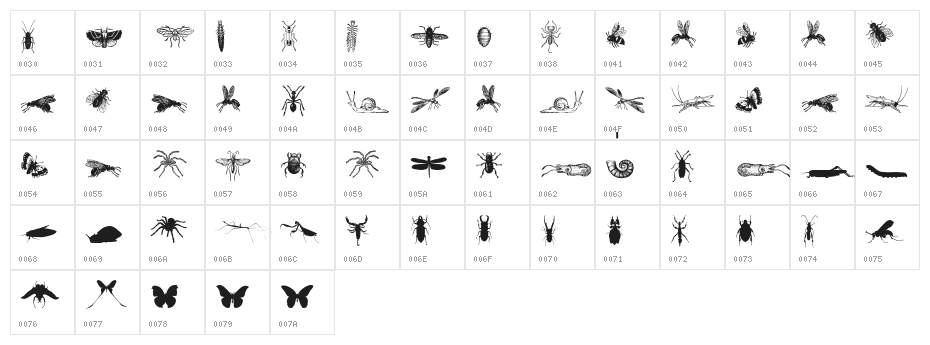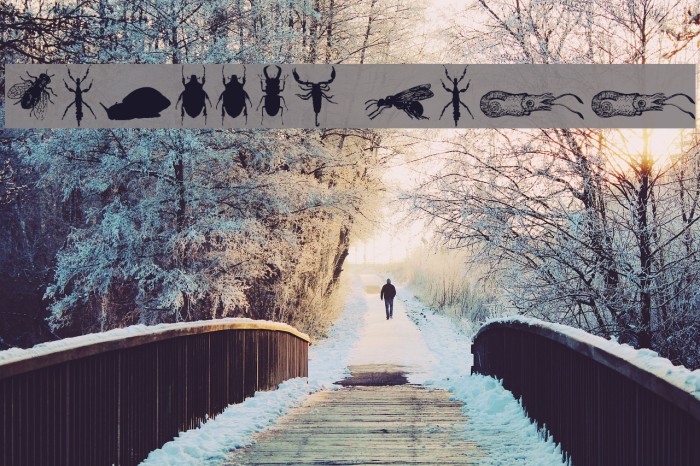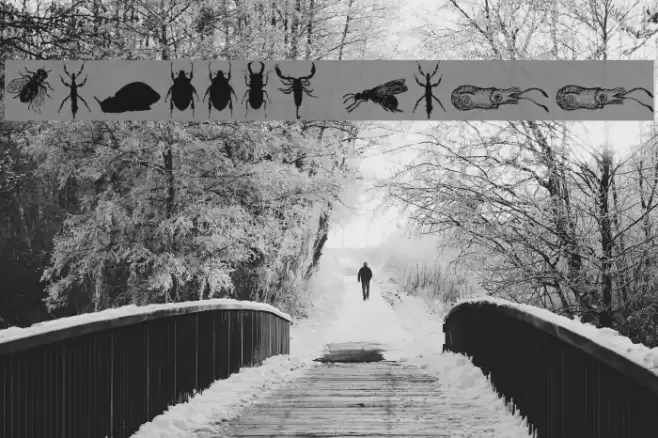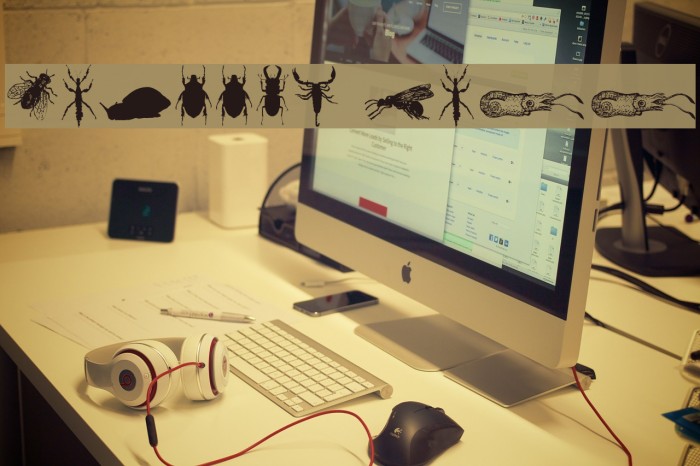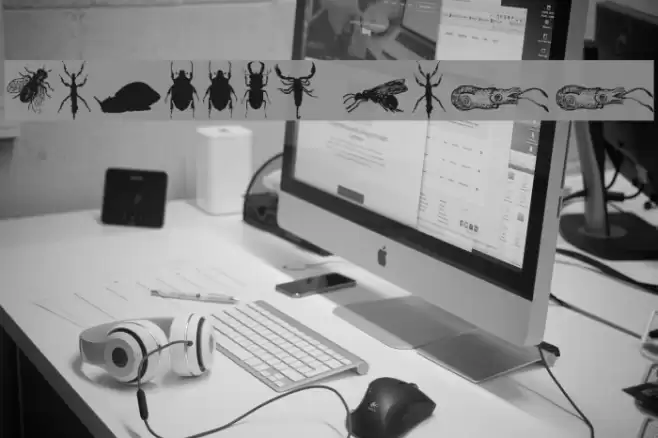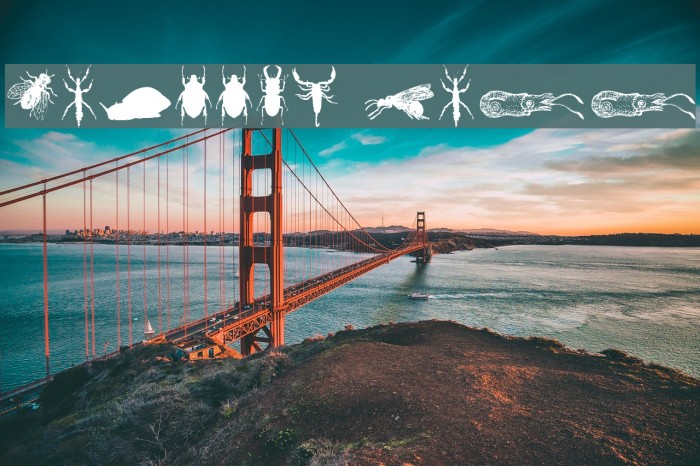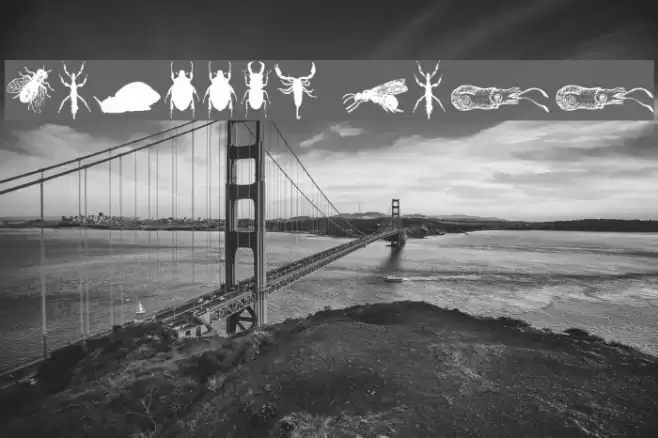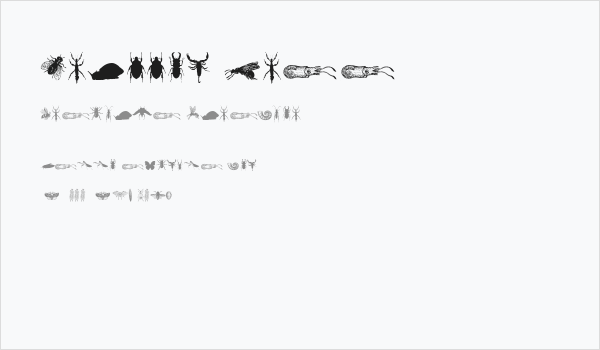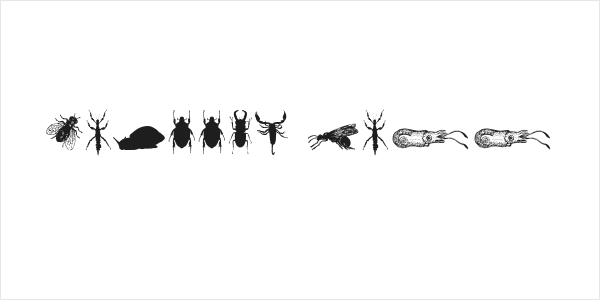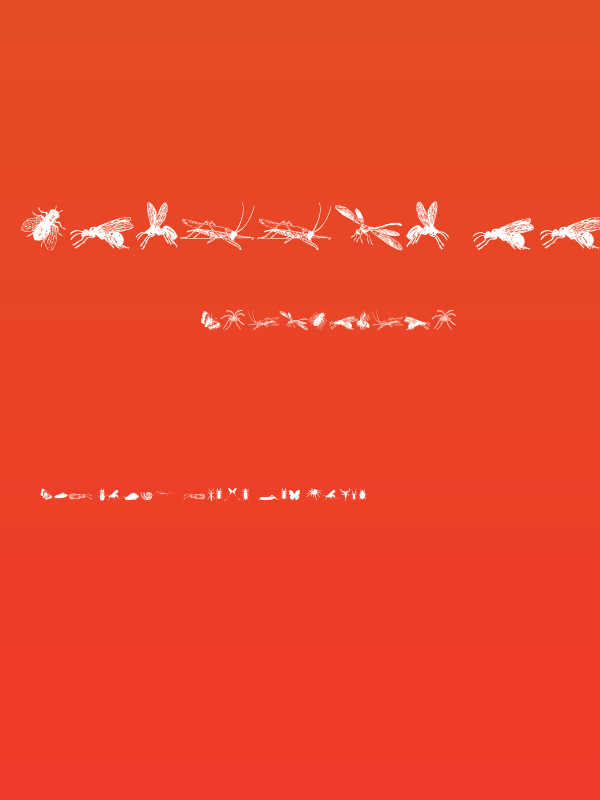
Grissom Free Font
Grissom Free Description
A collection of detailed black-and-white insect and arthropod illustrations, each glyph representing a different species or form, with high contrast and intricate line work. The style is realistic and scientific, focusing on anatomical accuracy rather than typographic characters.
| Overall Style | Scientific, Realistic, Decorative |
| Use Case | Illustrative elements, Thematic headings, Educational materials |
| Proposed Projects | Educational posters, biology textbooks, scientific infographics, natural history museum displays, entomology presentations. |